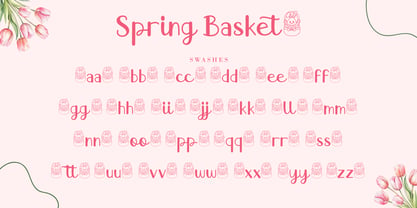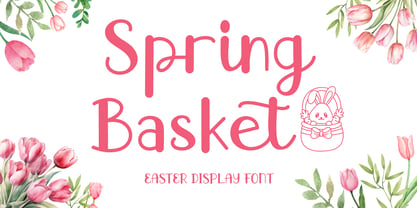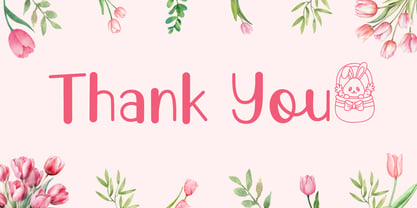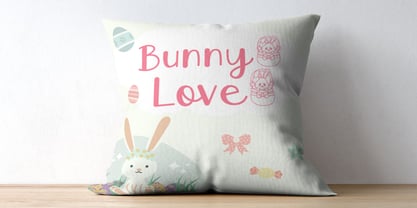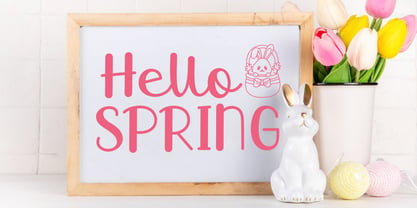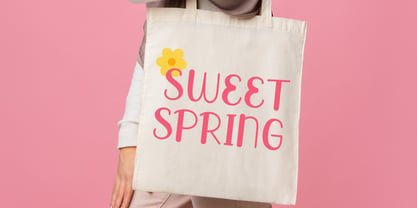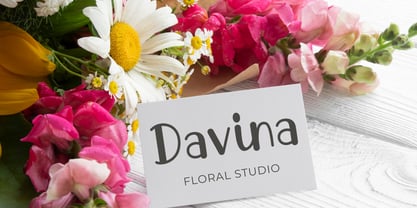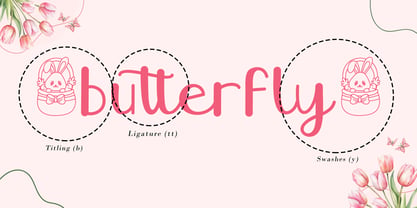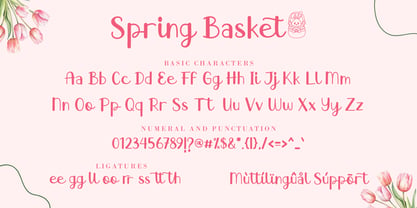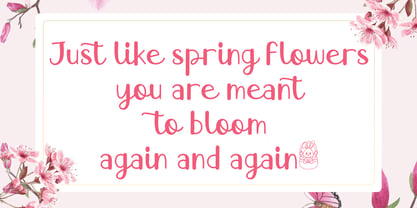
Spring Basket
The Spring Basket Font Family was designed by Agung Eko Nugroho and published by AEN Creative Studio. Spring Basket contains 2 styles and family package options. More about this family
Spring Basket is a seasonal display typeface designed to capture the lightness and optimism of spring. Its carefully constructed letterforms combine softness and clarity, resulting in a friendly yet polished appearance. The design balances playful warmth with strong legibility, making it suitable for both expressive headlines and commercial applications. Ideal for Easter campaigns, spring promotions, packaging, greeting cards, and lifestyle branding, Spring Basket performs beautifully in both print and digital environments. The character shapes are crafted to maintain visual harmony while offering enough personality to stand out in competitive layouts.